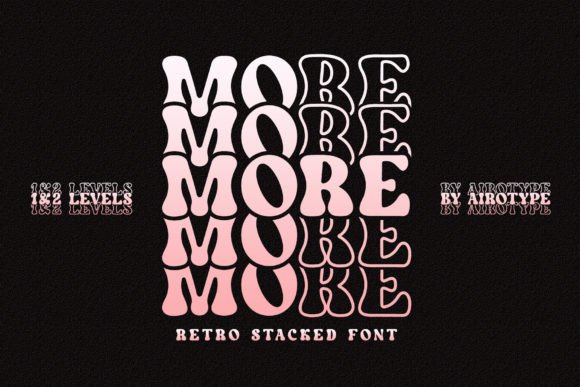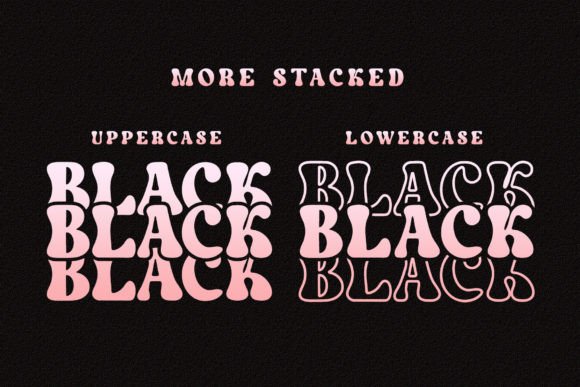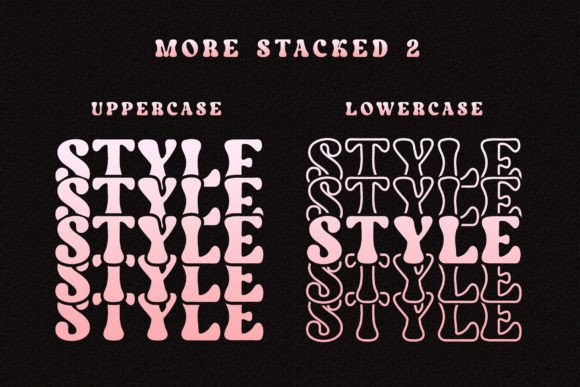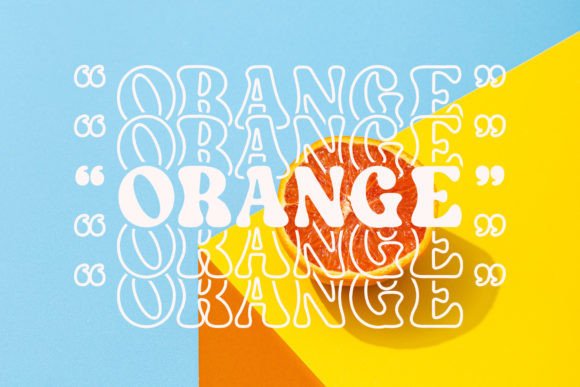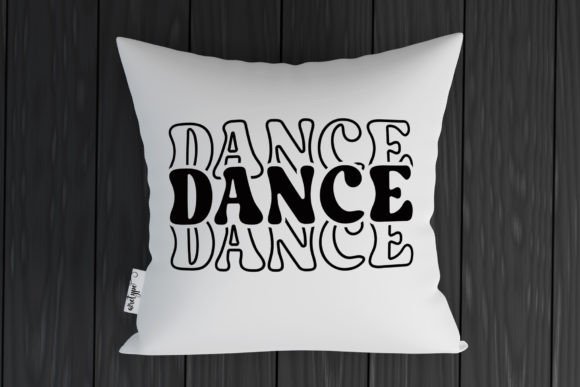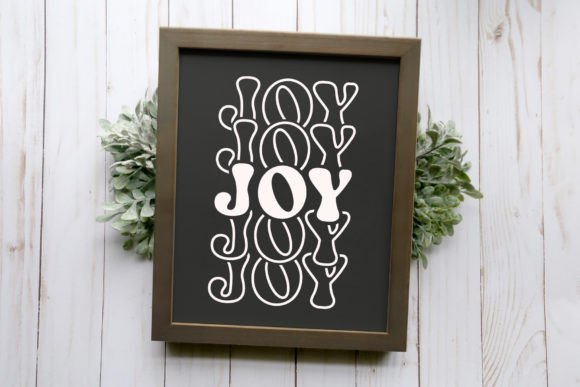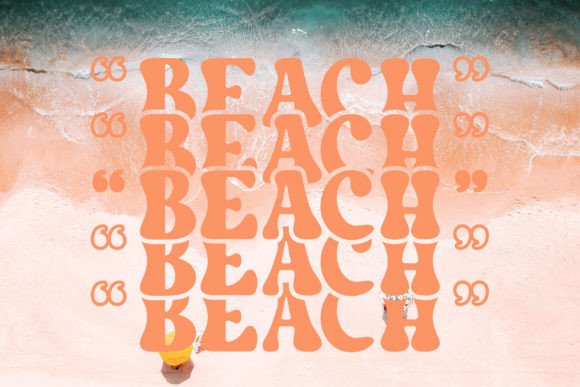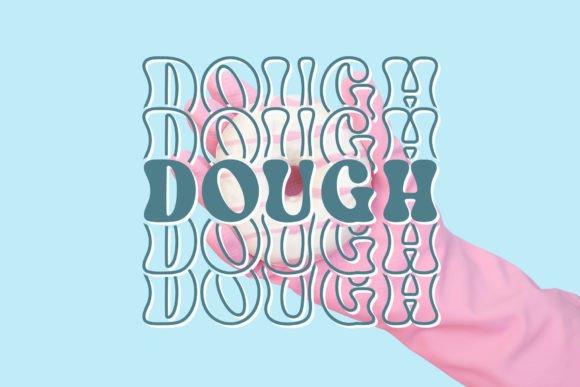
More Font
More Stacked is display stacked font with retro and vintage style.
This display font is perfect font for any crafting project, such as poster, t-shirt quote, mug, sticker, sublimation, display, and many more.